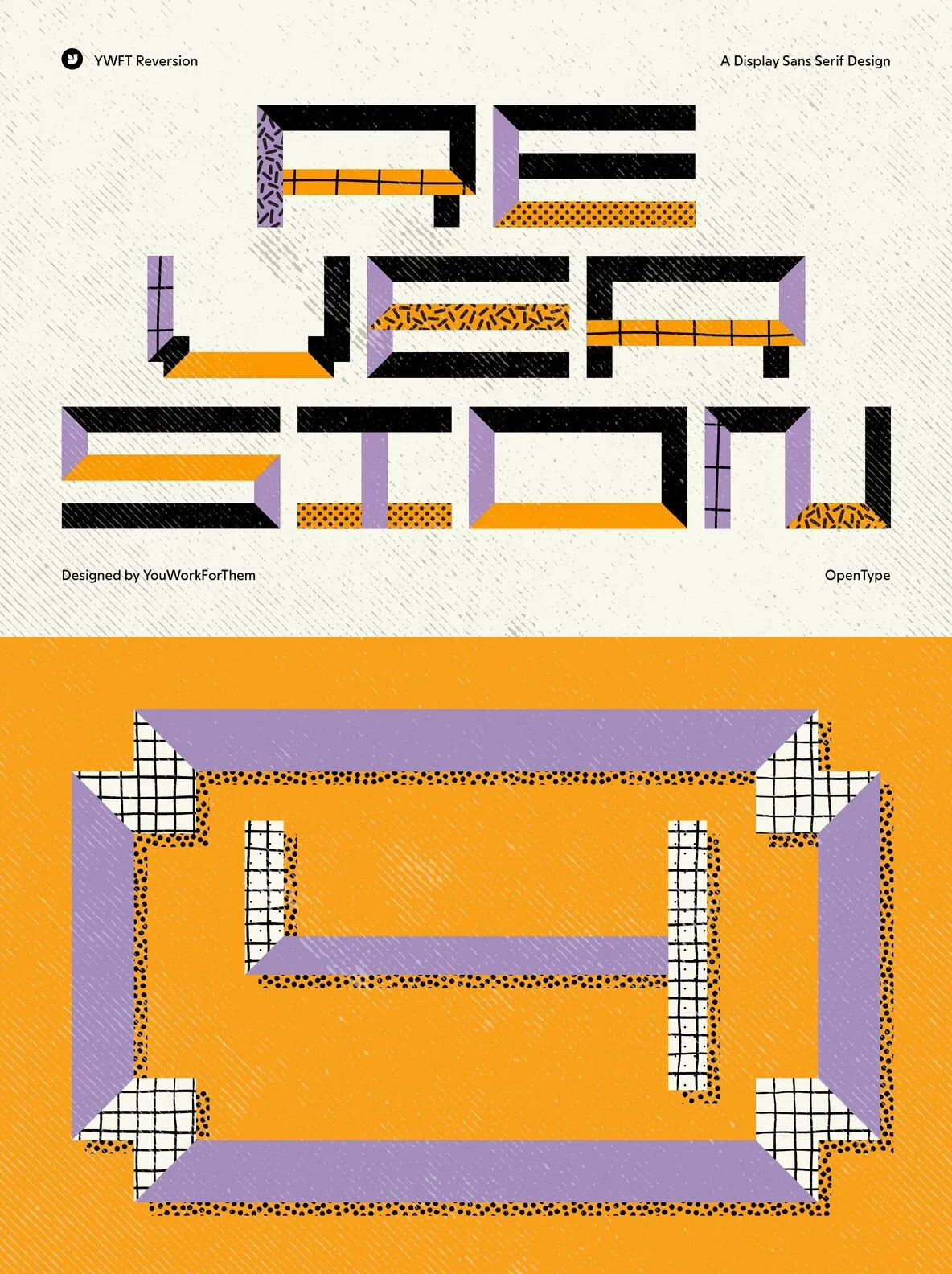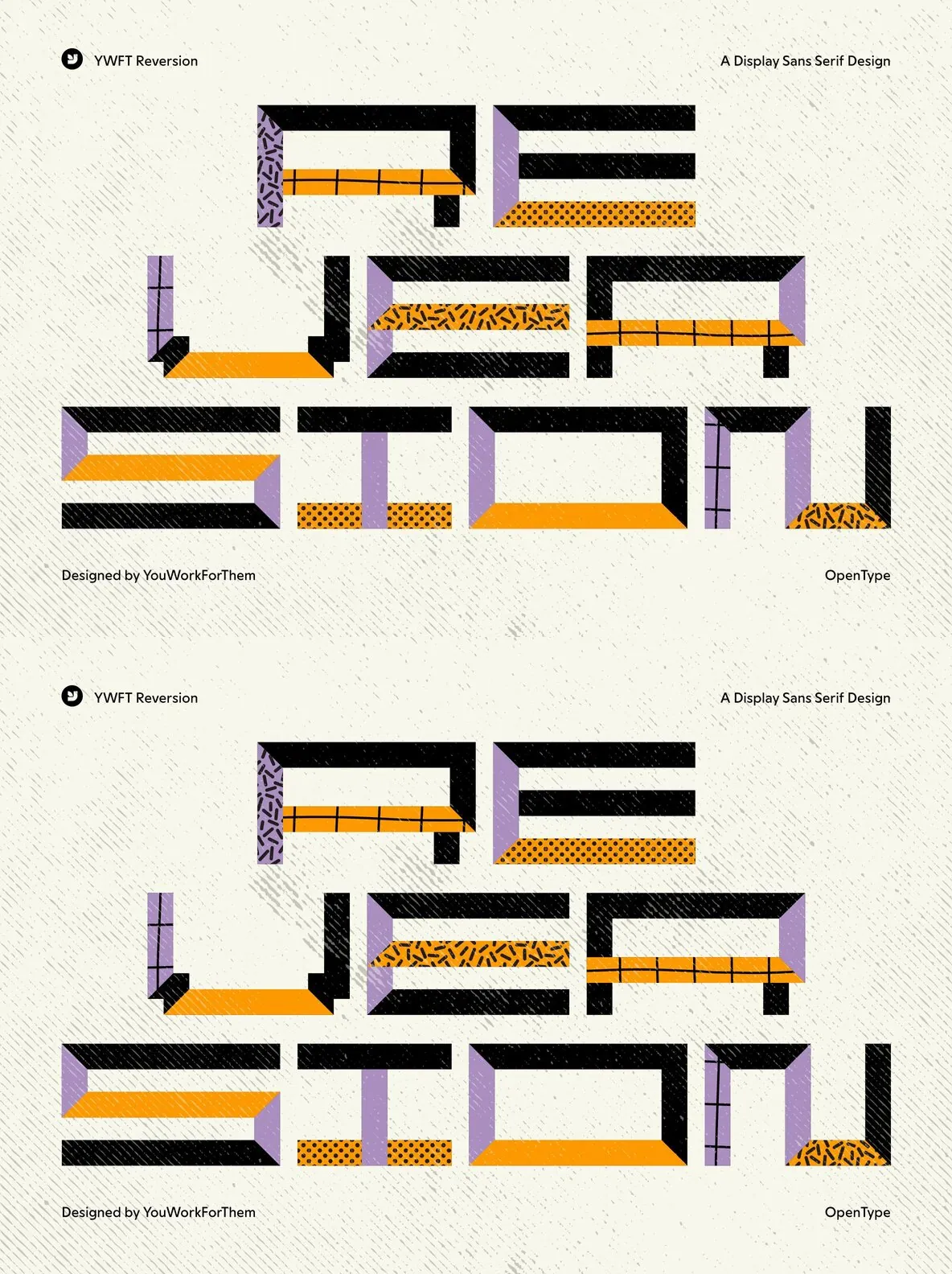
YWFT Reversion — Wide, Bold, Built for Impact
YWFT Reversion is a distinctive and adaptable display typeface for bold headlines, captivating posters, and striking billboards. Its wide structure gives layouts a steady, confident presence, while staying readable at scale. Use it when you need a strong typographic voice that holds attention across print and digital design.
The wide build also makes YWFT Reversion a solid foundation for custom lettering projects. Designers can start from a robust skeleton and push the forms into new directions. The Broken styles are a key part of what sets it apart, with unique letter formations that bring a fresh take to bitmap and display typography.
Originally converted to Opentype format in 2010, YWFT Reversion remains a valuable tool for contemporary graphic and digital designers. It fits projects that need a modern edge or a creative kick, and it supports work where visual impact and a cohesive design narrative matter.